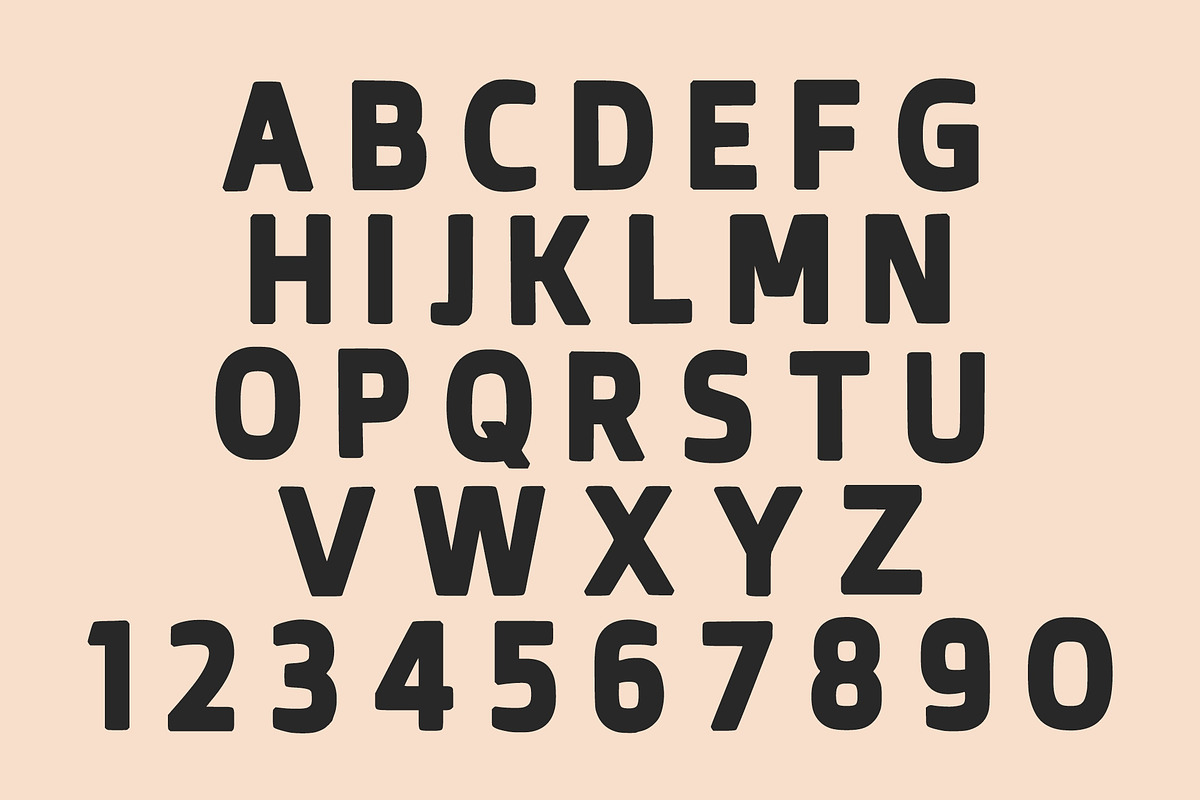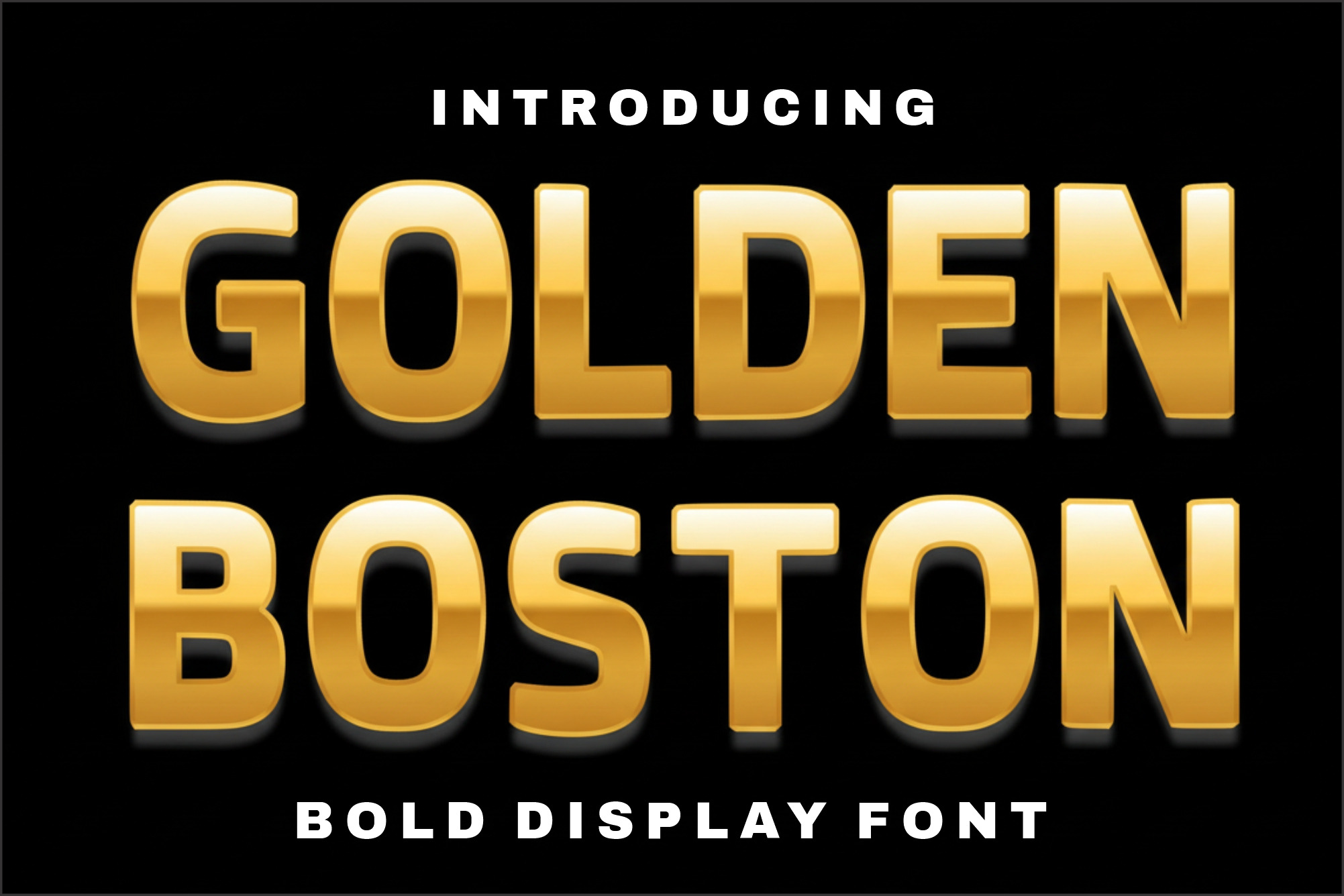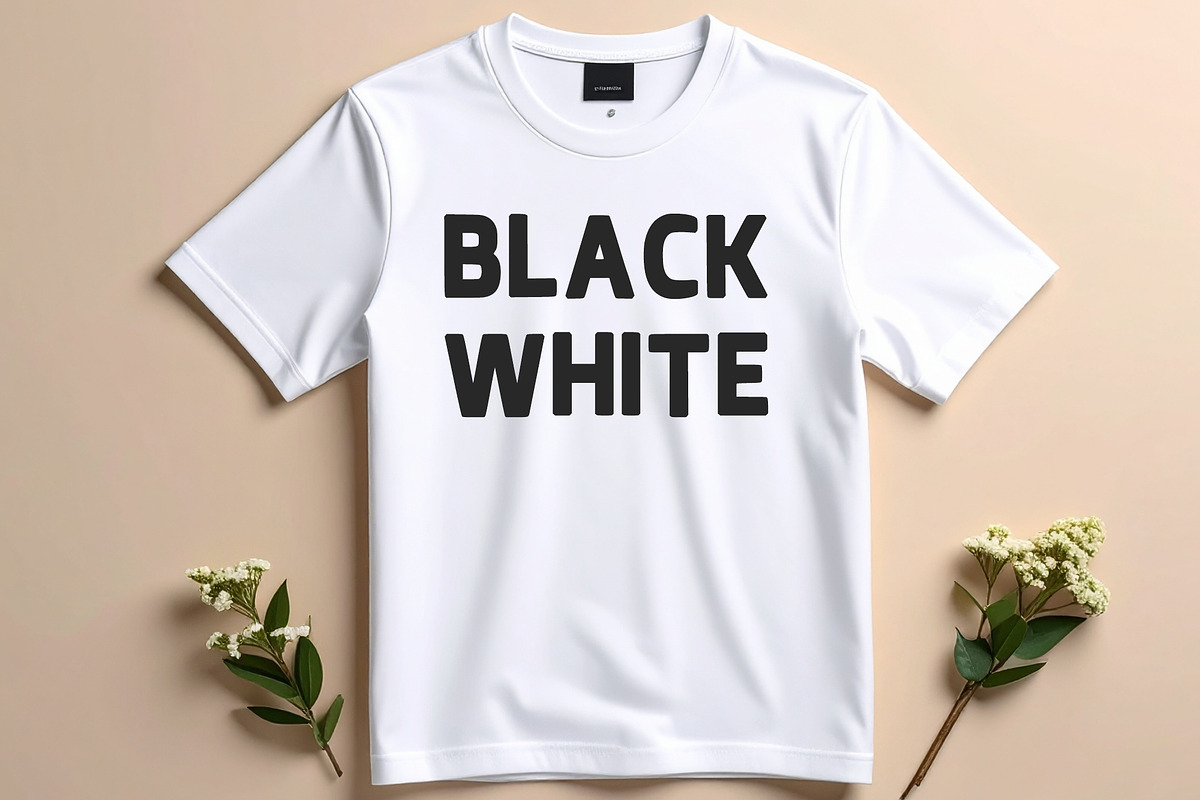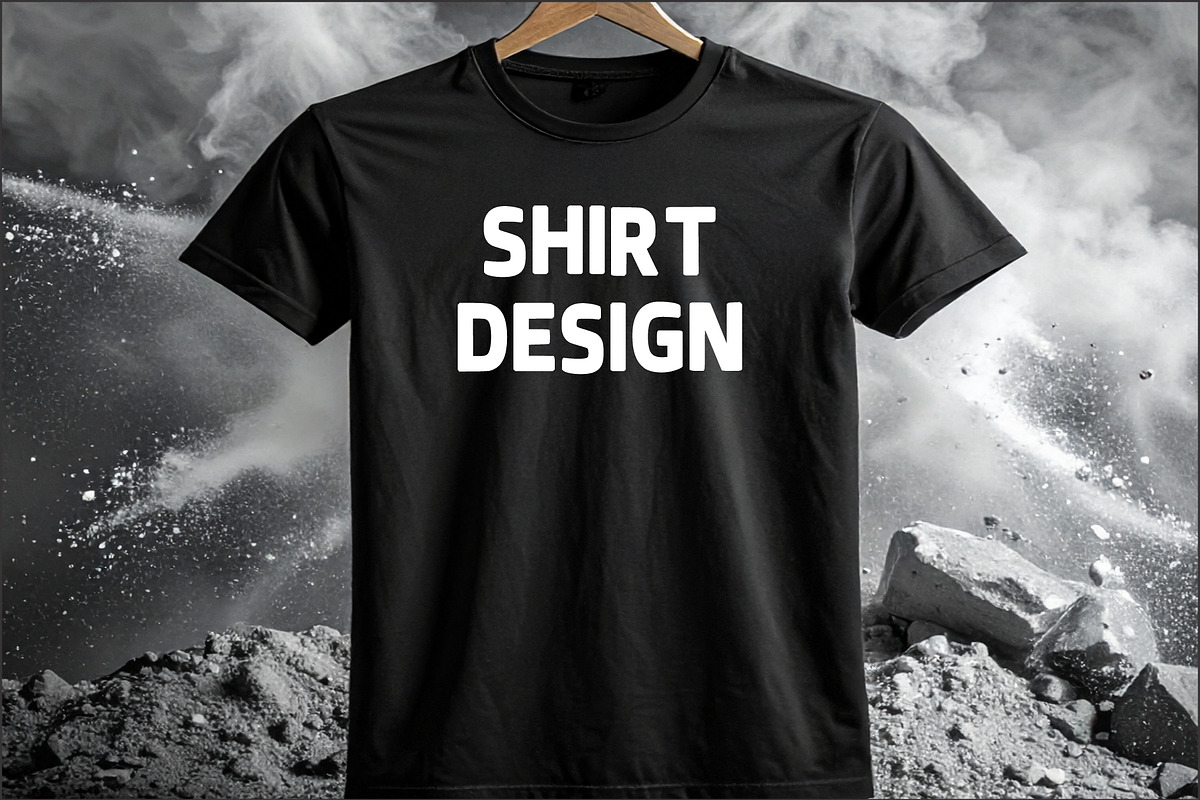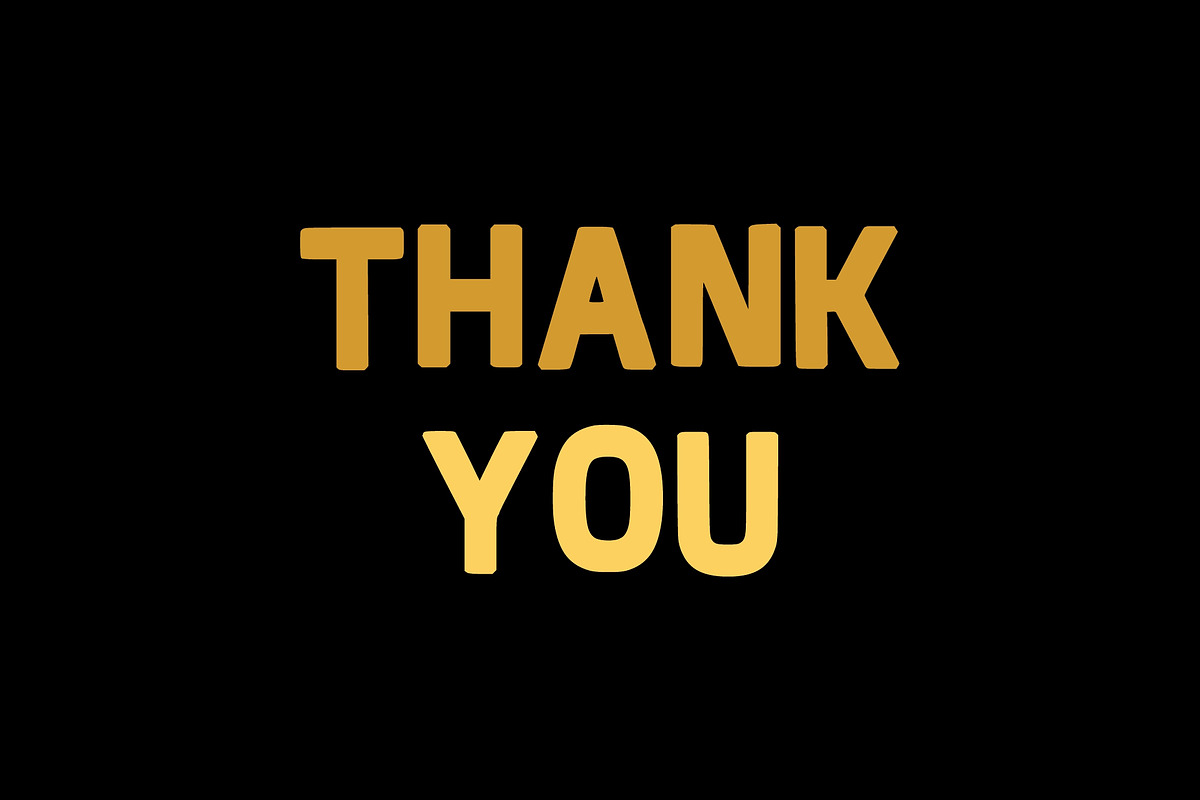
Golden Boston – Luxury Bold Font
Golden Boston is a premium bold display font designed to make a powerful statement with elegance, confidence, and modern sophistication. Inspired by luxury branding, premium packaging, high-end advertising, and contemporary visual identity design, this font combines strong geometric letterforms with a clean and professional appearance that instantly captures attention.
Its bold structure and balanced proportions create exceptional readability while maintaining a luxurious and exclusive feel. Whether used for logos, headlines, product packaging, social media campaigns, website banners, posters, book covers, or corporate branding, Golden Boston delivers a polished and memorable visual impact.
The font is carefully crafted to provide a modern yet timeless aesthetic, making it suitable for a wide range of creative projects. From luxury fashion brands and premium cosmetic packaging to technology startups and professional marketing materials, Golden Boston helps elevate your design with a bold, confident presence.
Its clean lines and commanding appearance make it ideal for designers seeking a versatile display font that works beautifully in both print and digital media. Golden Boston shines in large-scale typography, creating stunning titles, attention-grabbing advertisements, and premium brand identities that stand out from the competition.
Whether you are building a sophisticated logo, creating elegant packaging, designing promotional graphics, or developing a luxury brand identity, Golden Boston offers the perfect combination of strength, professionalism, and modern style.